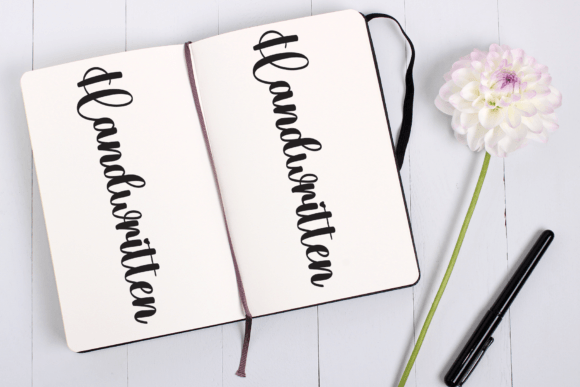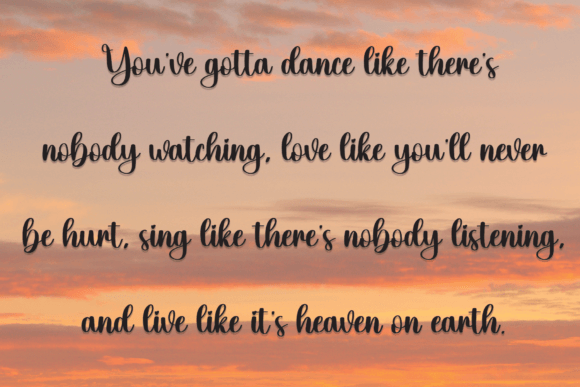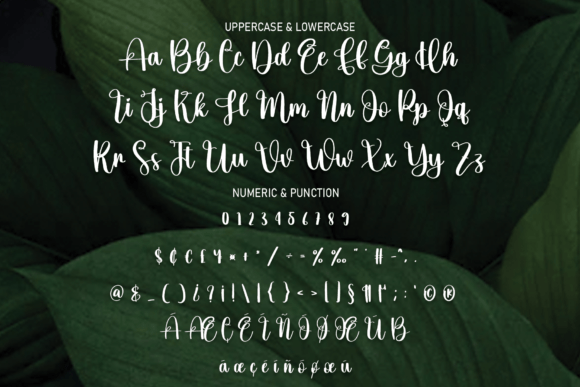
Introduction to Goddess Font
Have you ever sat down at your desk, surrounded by half-finished projects and scattered design ideas, and felt the sudden urge to create something truly beautiful? For many designers, this moment is the spark that sets their imagination ablaze. It’s the moment when the perfect font can elevate their work from good to great. Enter the Goddess Font, a stunning handwritten font that has captured the hearts of designers around the world.
With its elegant, calligraphic influences and fresh, contemporary feel, the Goddess Font is the ultimate design resource for any creative project. Whether you’re working on a wedding invitation, a branding campaign, or a social media post, this high-quality font is sure to bring your design to the next level.
Key Features of Goddess Font
- High-quality design: Goddess Font offers a beautiful, elegant design that can elevate any creative project.
- Large character set: Goddess Font includes a large character set, including uppercase and lowercase letters, numbers, and special characters.
- High-resolution design: The font is designed at a high resolution, ensuring that it looks great in print and digital applications.
- Perfect for creative projects: Goddess Font is ideal for use in creative projects, such as logos, branding, and typography-based designs.
Honest Review: Goddess Font
I recently stumbled upon the Goddess Font, and I must say it’s a lovely addition to my design arsenal. The font is perfect for creating a feminine touch in any project, and it’s totally free to download.
- What works well: ✨ The Goddess Font has a high-quality design that makes it perfect for creative projects. It’s a great resource for designers who want to add a touch of elegance to their work.
- What works well: ✨ The font has a transparent background, making it easy to use on any background. This is especially useful for designers who work with complex compositions.
- What works well: ✨ The font is highly customizable, allowing designers to adjust the size, color, and style to suit their needs.
However, I do have a few limitations to mention:
- ⚠️ The font is a bit limited in its character set, making it less suitable for extended text projects.
- ⚠️ The font may not be as versatile as some other options, making it less suitable for projects that require a lot of variation.
Overall, I’m quite impressed with the Goddess Font. It’s a great resource for designers who want to add a touch of elegance to their work, and it’s perfect for creative projects. With a few limitations in mind, I would definitely recommend it to anyone looking for a high-quality, free font.
Goddess Font
Tips for Getting the Most Out of the Goddess Font
For the best results, use the Goddess Font on a transparent background to create a beautiful and elegant design. You can also combine the font with other design elements, such as graphics and images, to create a unique and eye-catching design.
The Goddess Font is ideal for a variety of creative projects, including wedding invitations, business cards, and social media graphics. Its high-quality design and elegant style make it a great choice for any project where you want to add a touch of sophistication and glamour.